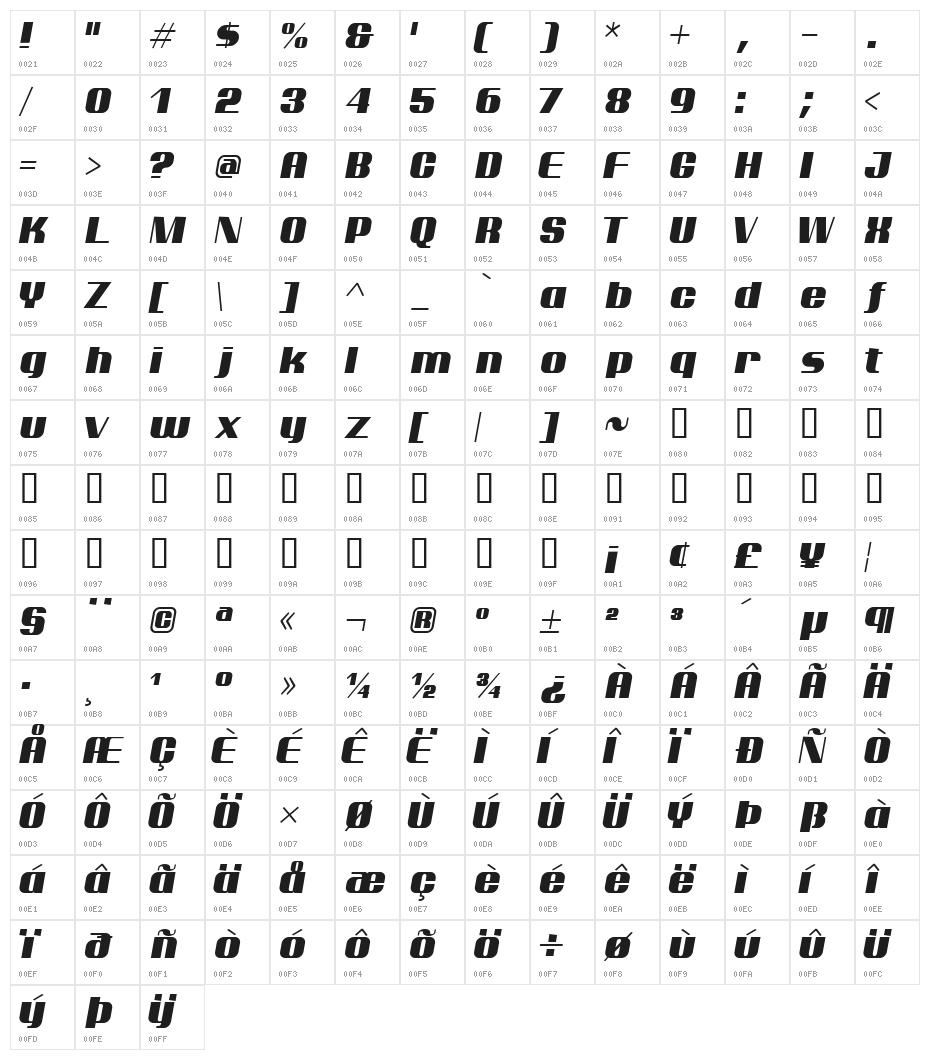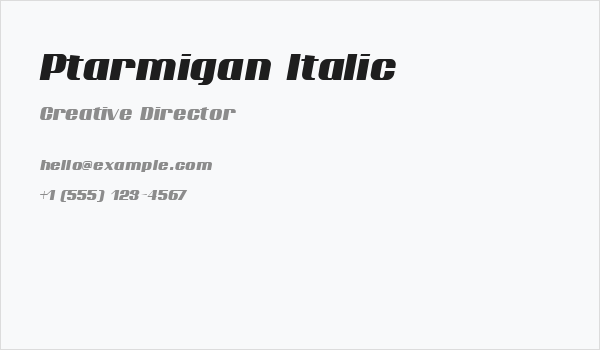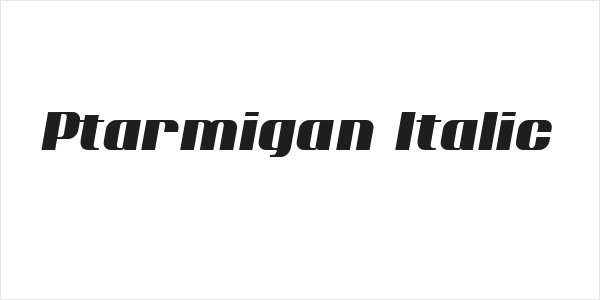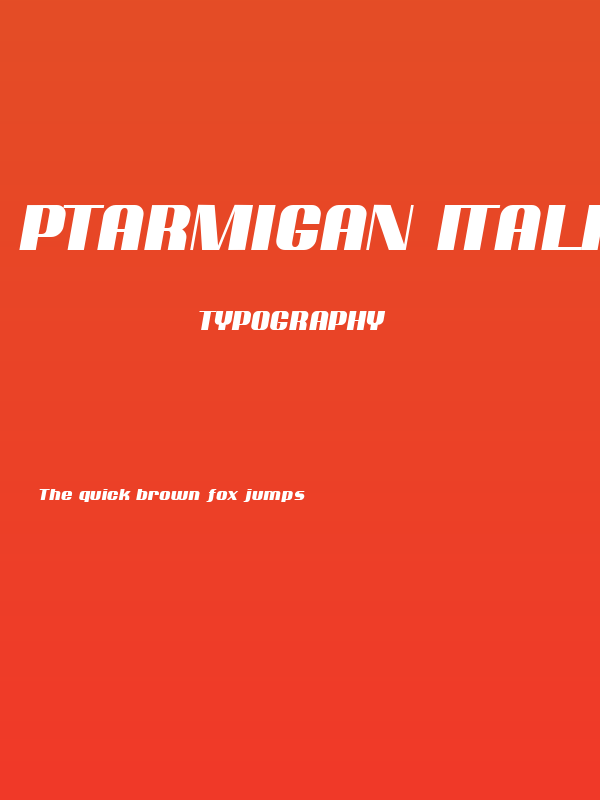
Ptarmigan Italic Font
Ptarmigan Italic Description
This font exhibits a bold and dynamic style with a pronounced italic slant, giving it a sense of movement and energy. The characters are wide and robust, with a strong presence that commands attention. The strokes are thick and consistent, providing a solid and impactful appearance. The uppercase and lowercase letters maintain a uniform style, while the numerals and special characters are designed to complement the overall aesthetic. This font's boldness and italic nature make it suitable for projects that require a striking and modern look.
Proposed ProjectsIdeal for sports branding, dynamic posters, modern advertising, and impactful headlines.